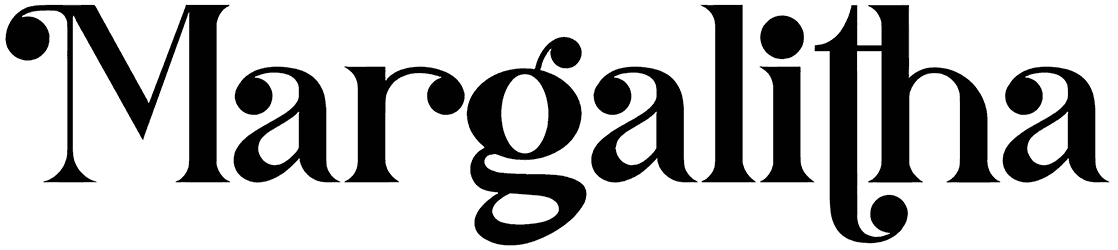
Margalitha Font
A lovely decorative touch, elegance, and a nice classic theme; all of these interesting qualities come as a package deal when you let Margalitha be in charge of your typography. In fact, you can ask this logo font for anything except numbers and punctuation.
The blooming serifs of Margalitha allow this modern font to fit your business cards perfectly. Whether your client is a book publisher, a café owner, a jewelry designer, or more, Margalitha can be of great help.